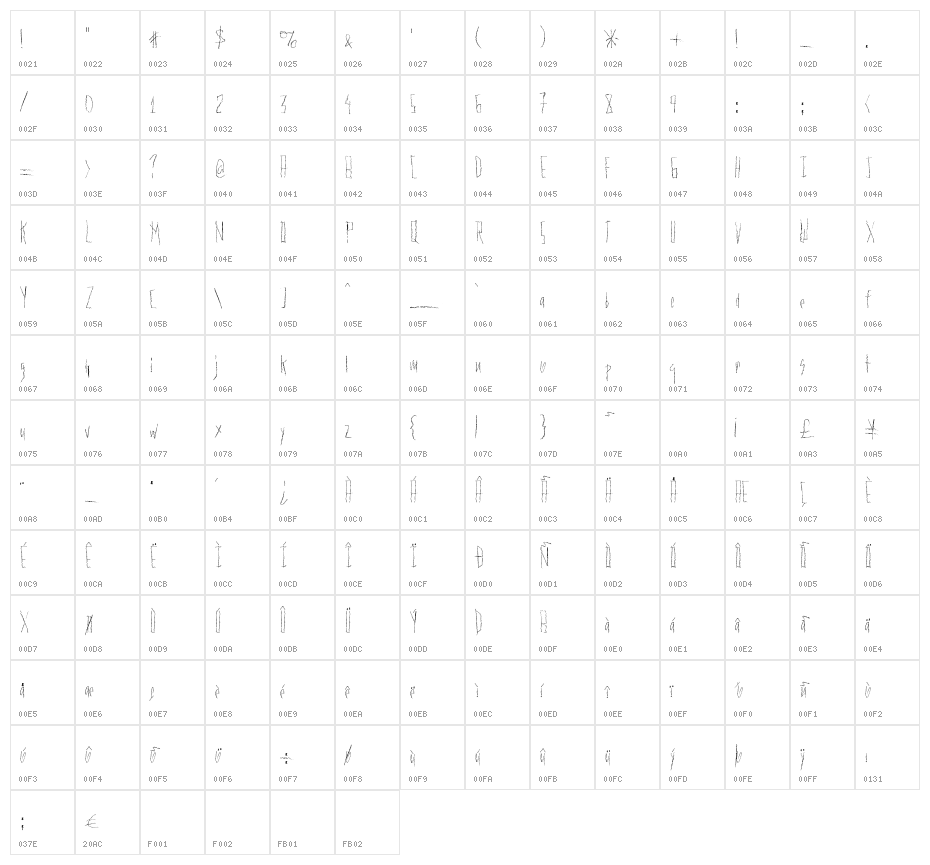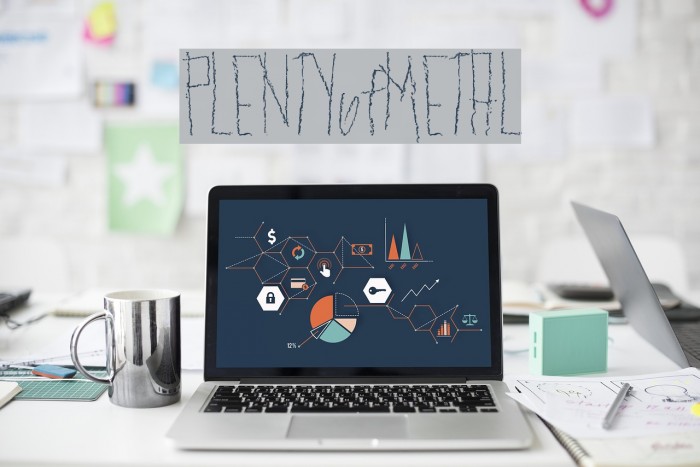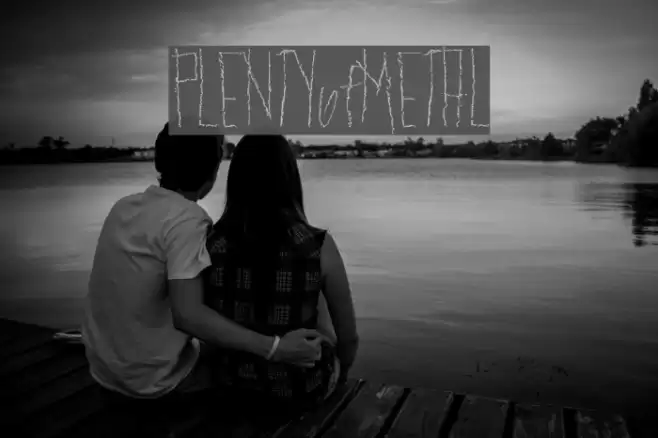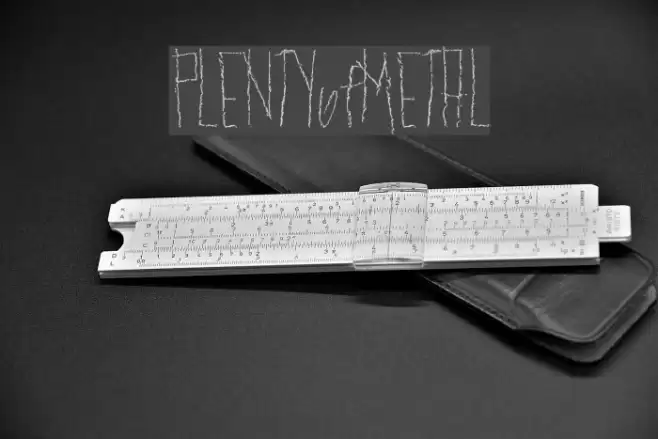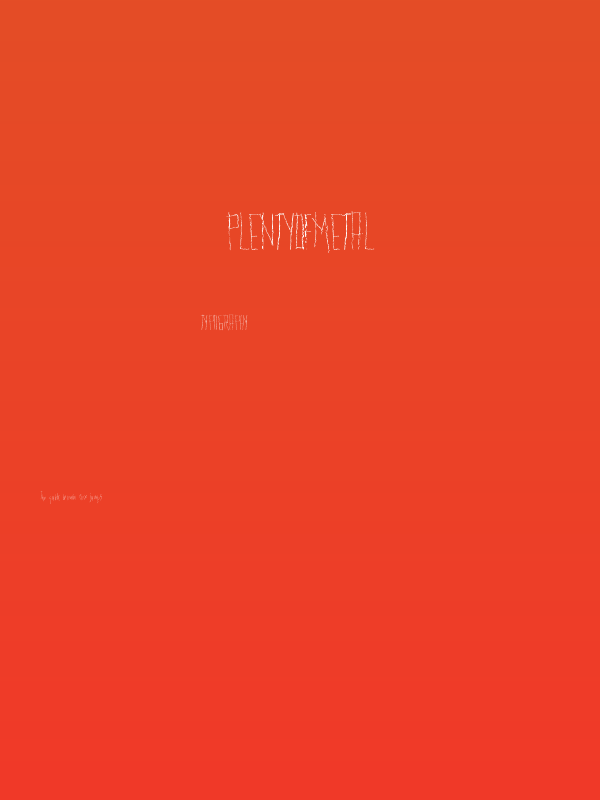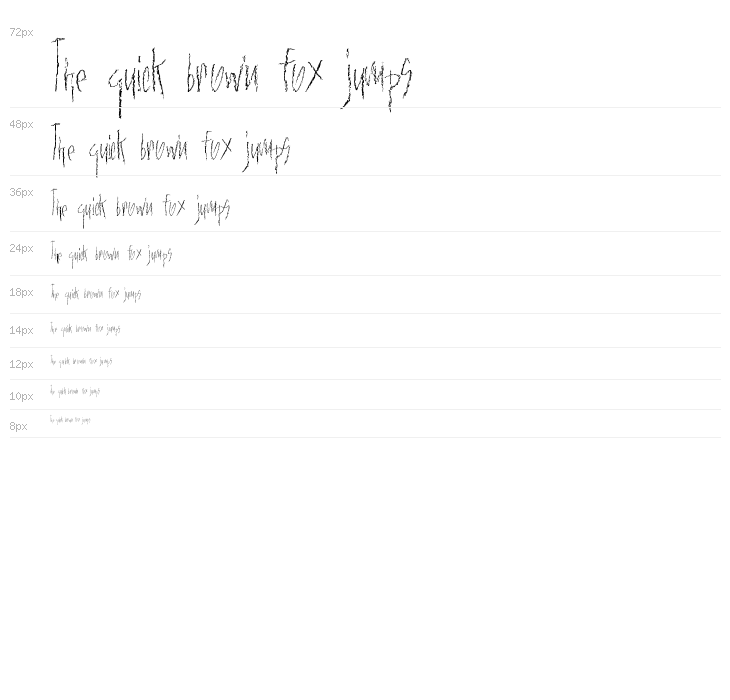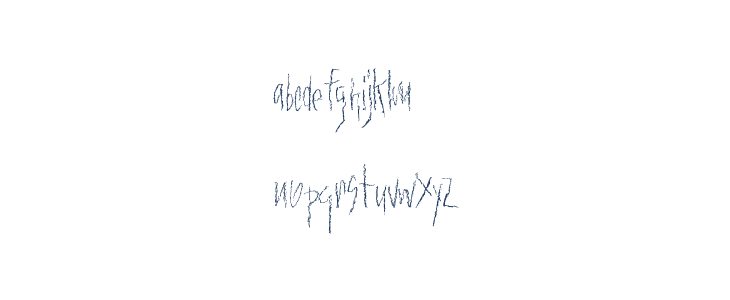
PLENTYofMETAL Font
PLENTYofMETAL Description
This font features a rugged, hand-drawn aesthetic with a distinctly metallic texture. The characters are elongated and narrow, giving them a tall, imposing appearance. The strokes are uneven and jagged, resembling scratches or etchings on metal surfaces. This creates a raw, industrial feel that is both edgy and artistic. The uppercase letters are particularly striking, with sharp angles and a sense of movement. The lowercase letters maintain the same rough style but with a slightly softer approach. Numbers and special characters follow the same design principles, ensuring consistency throughout the font.
| Overall Style | Industrial, Edgy |
| Proposed Projects | Ideal for album covers, posters, or branding projects that require a gritty, industrial look. |